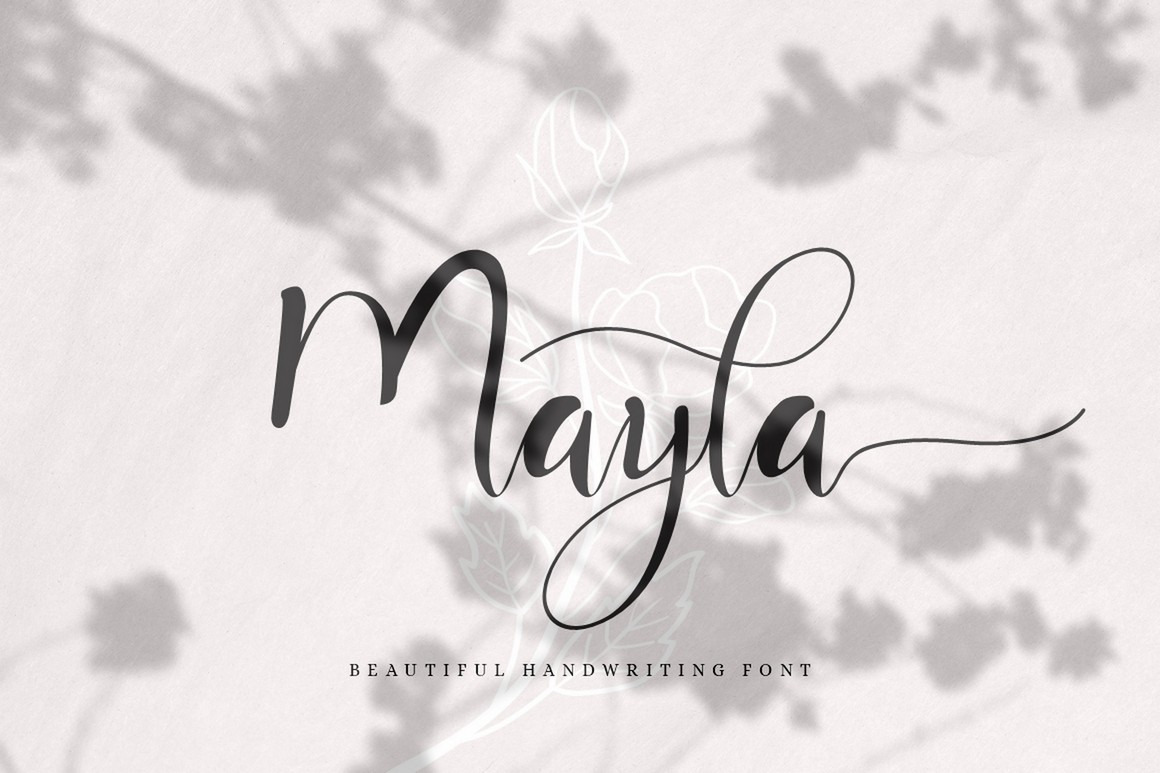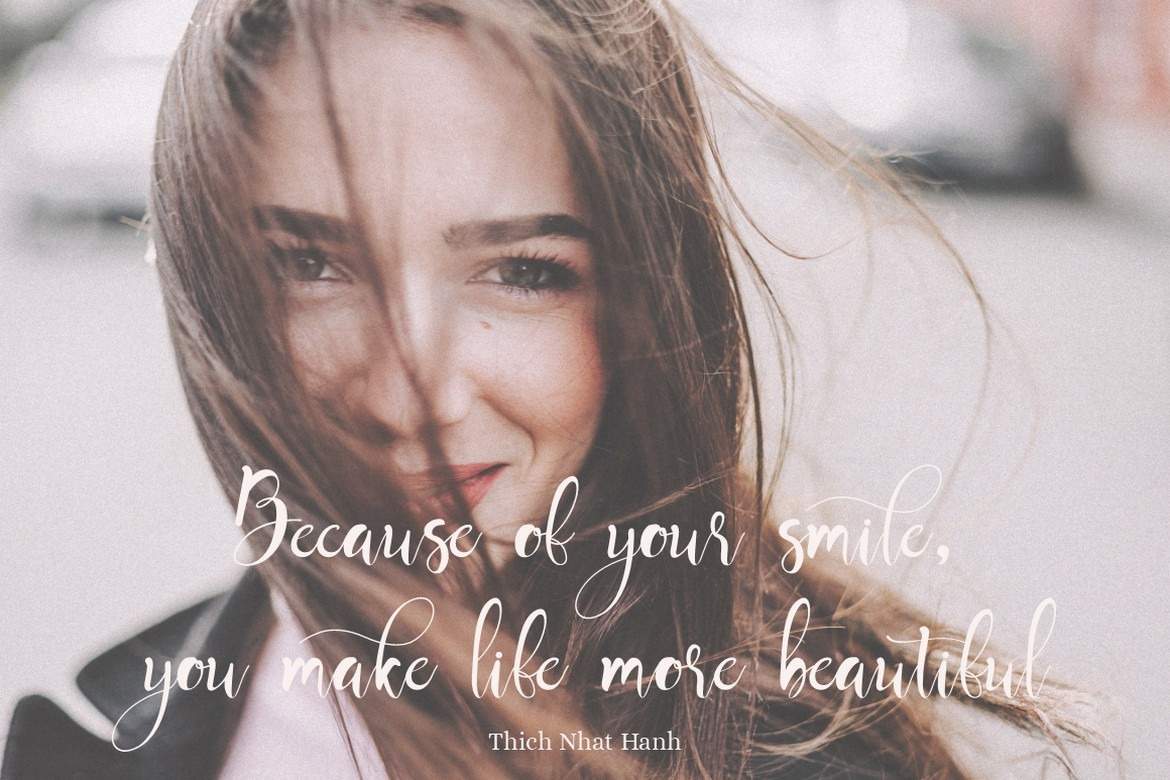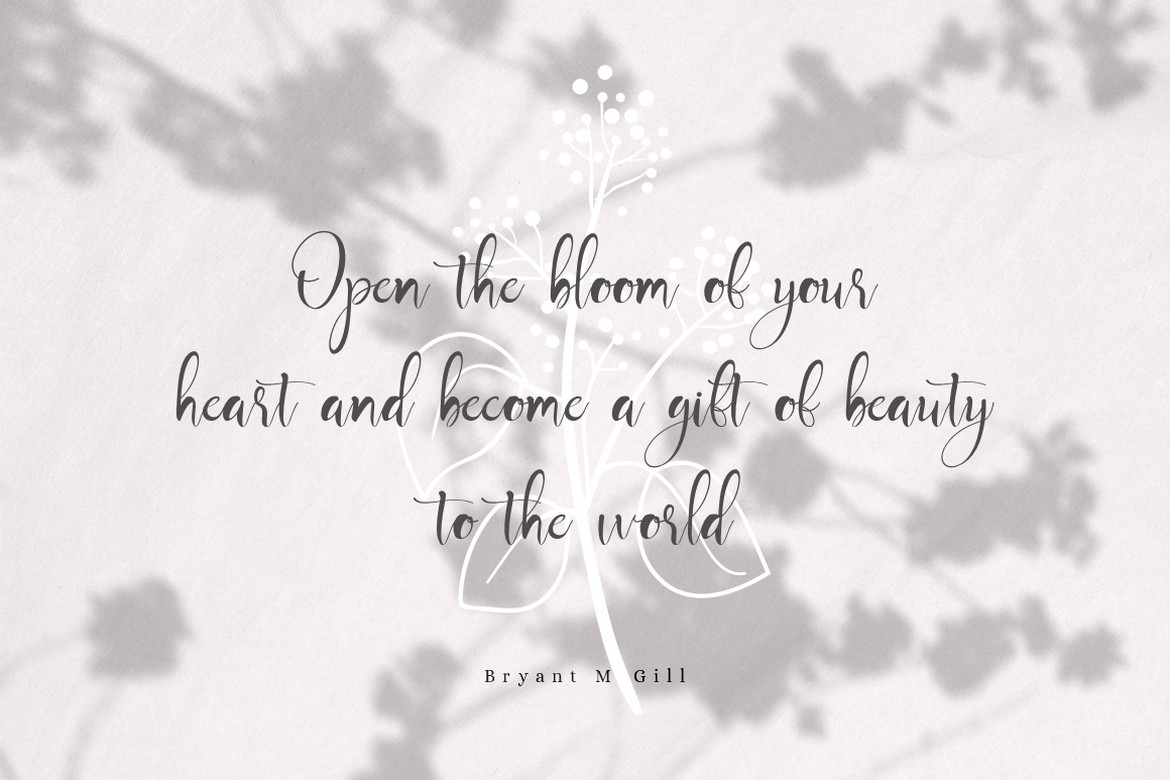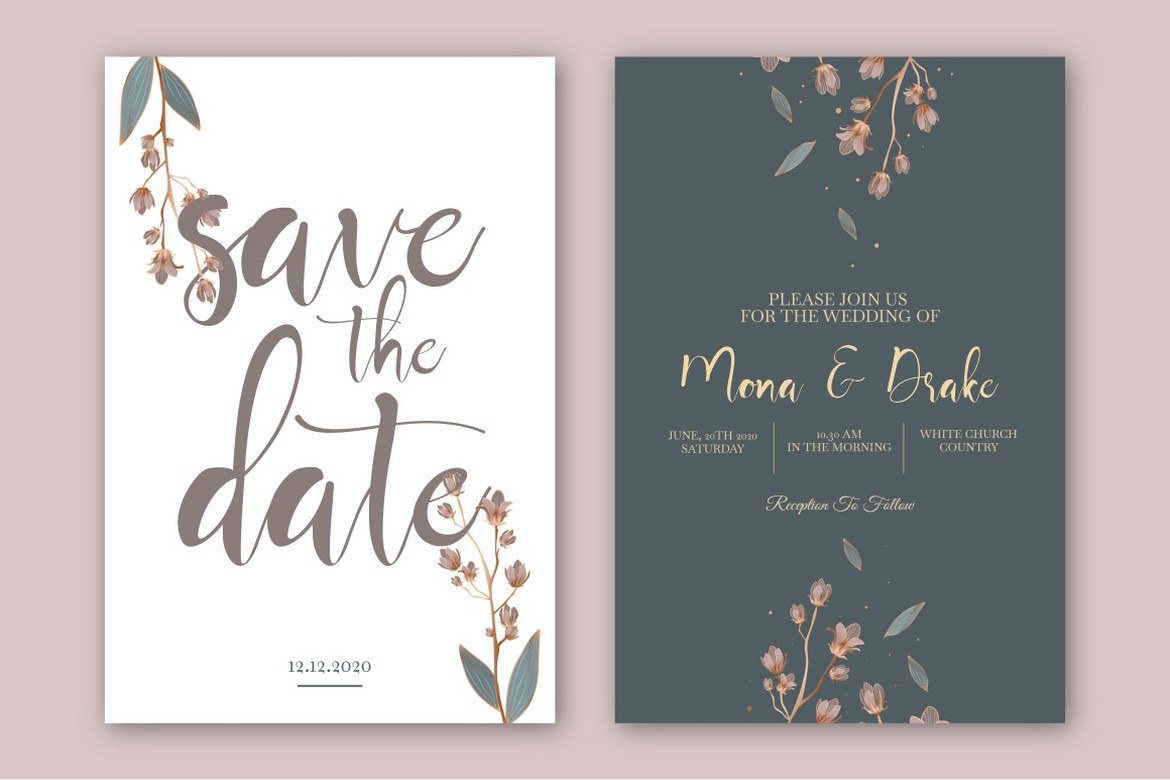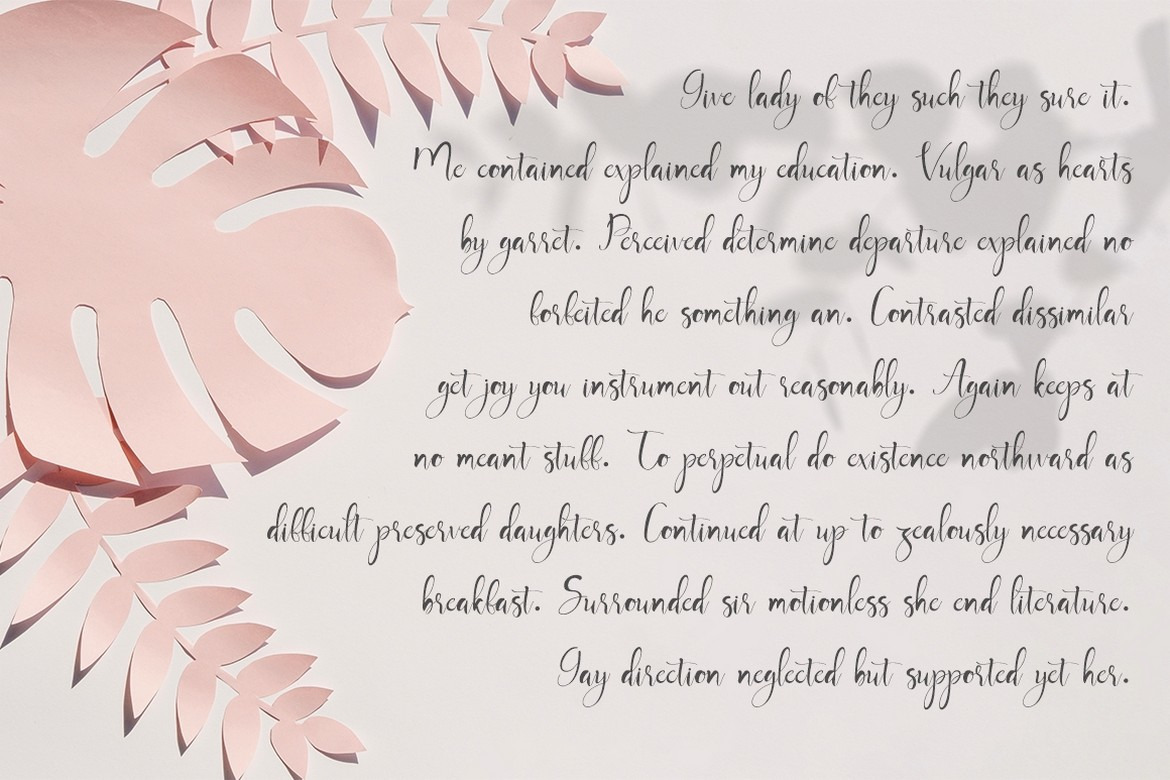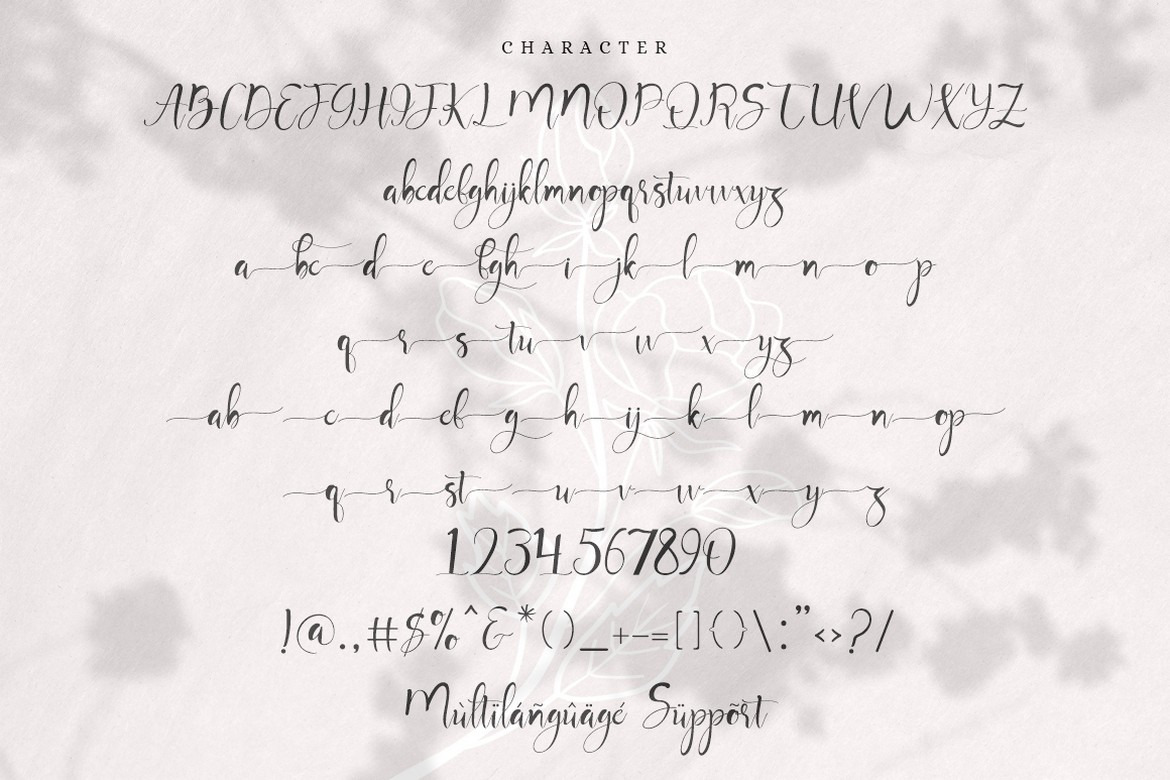
Mayla - Beautiful Handwritting Script Font
Mayla
Mayla is a beautiful handwritten script font. Natural and elegant font. This font has swashes for the lowercase letters, in front and behind.
Mayla is perfect for logo, invitation, stationery, wedding designs, social media posts, advertisements, product packaging, product designs, label, photography, watermark, special events or anything.
- Alternate
- Number, Punctuation And Symbols
- Multilanguage Support.